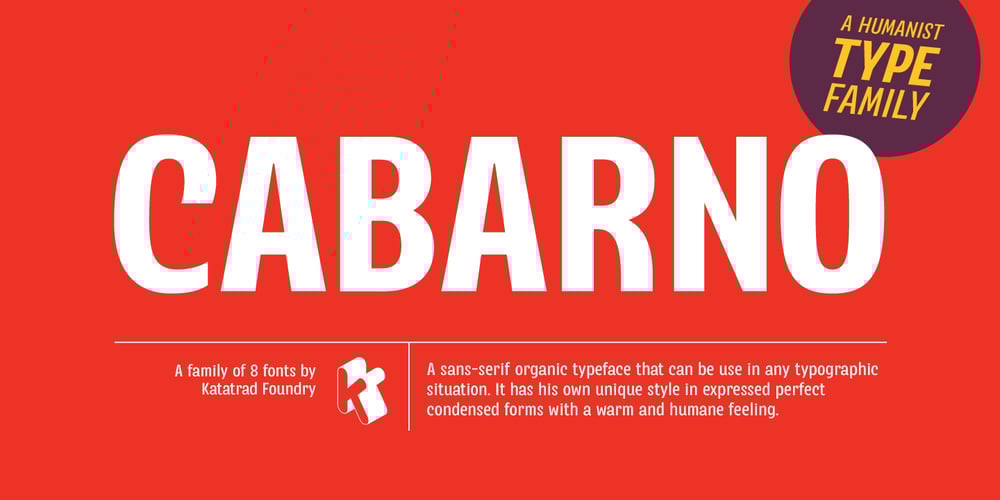
Cabarno Font Family was designed by Thanarat Vachiruckul and published by Katatrad. Cabarno contains 8 styles and family package options. Cabarno is a sans-serif organic typeface that can be use in any typographic situation. It has his own unique style in expressed perfect condensed forms with a warm and humane feeling. This font can function as headings, subheadings and body text with a set of alternative characters for your design in any layout. The family has 4 weights ranging from Light to Black and their italic.